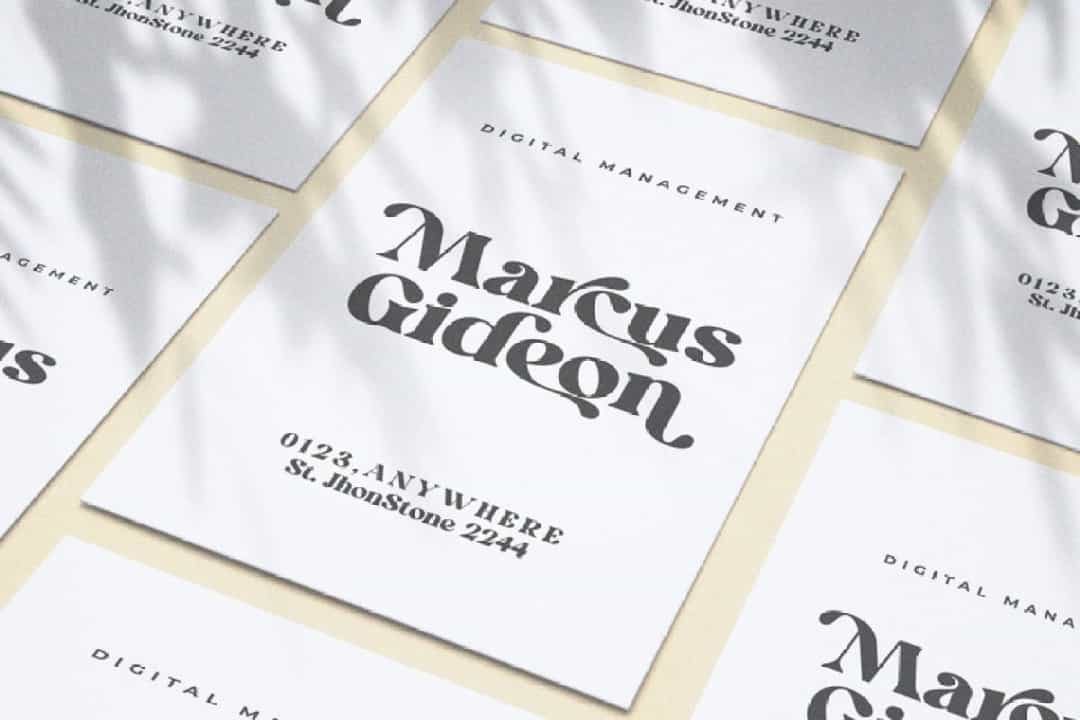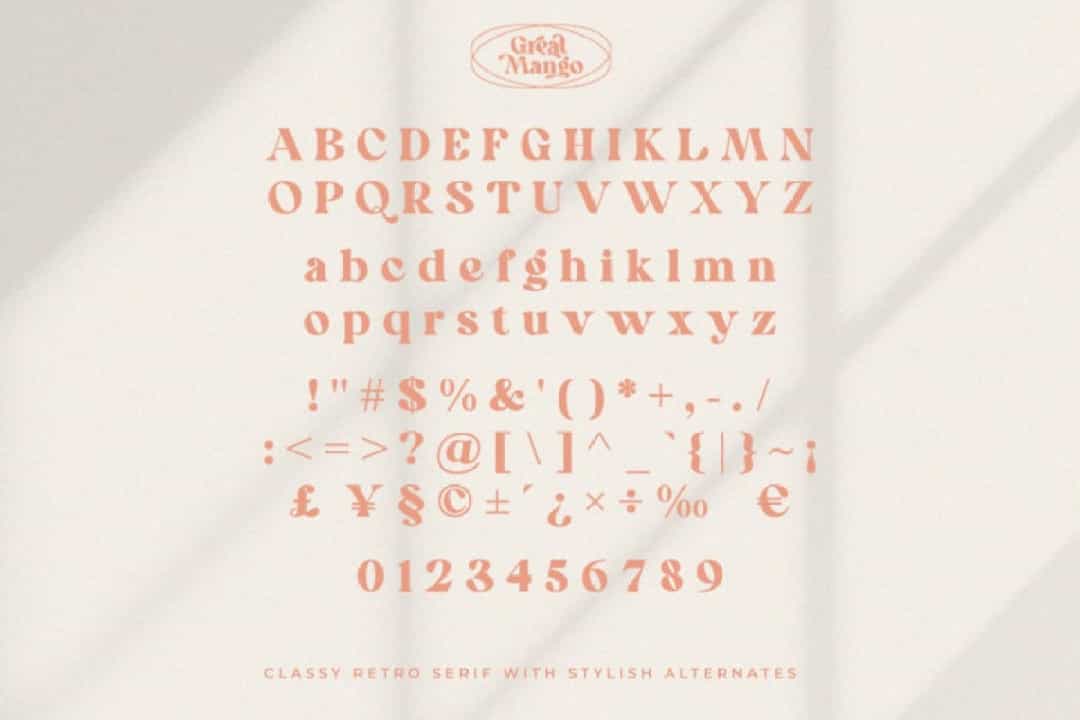
Great Mango – Inspired by fashion’s most stylish trends, Great Mango is a stylish serif typeface perfect for text use. Although traditionally conservative (conservative serif), this font can also be made more expressive through substitutions and ligatures to give your work that individual touch you desire. Experimentation will help bring out its true potential!